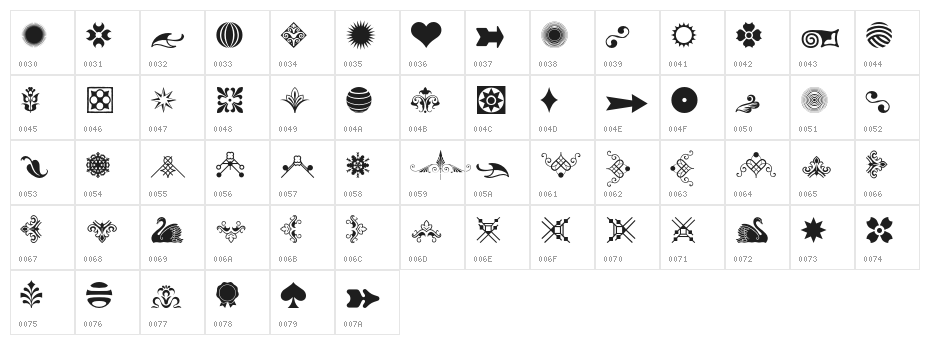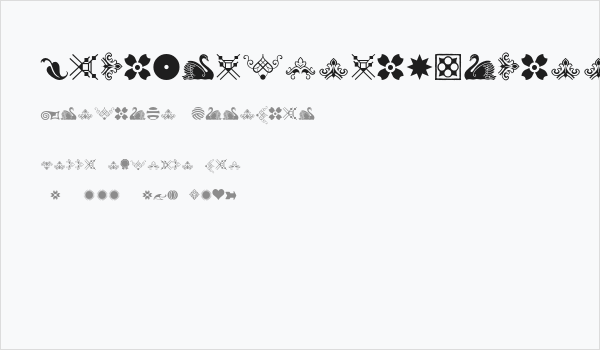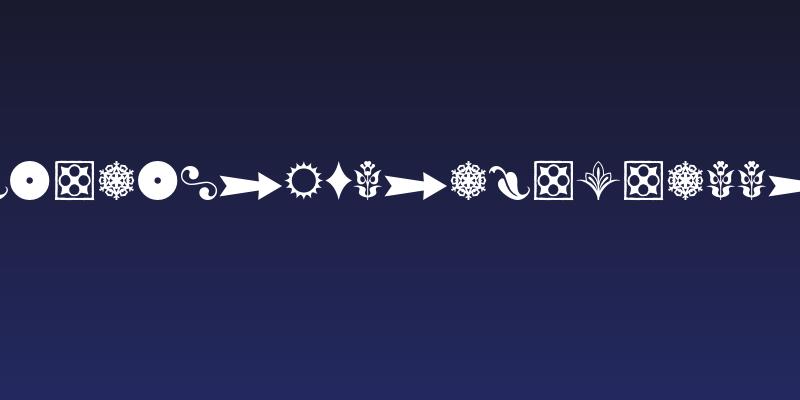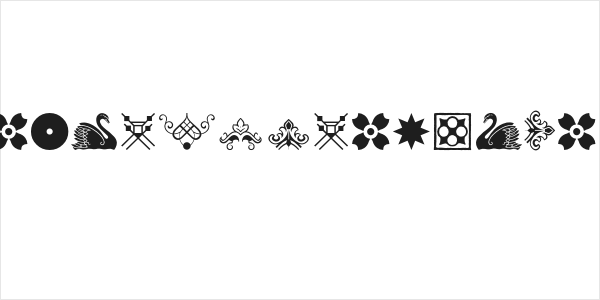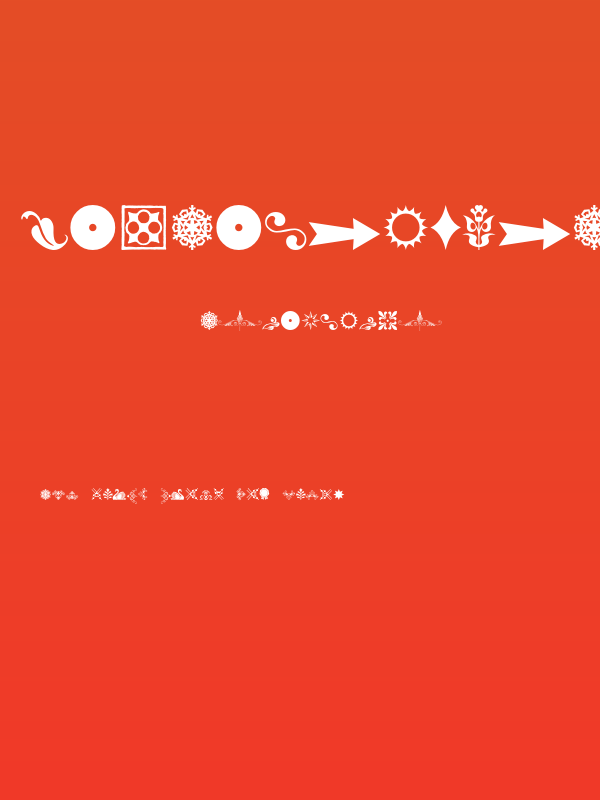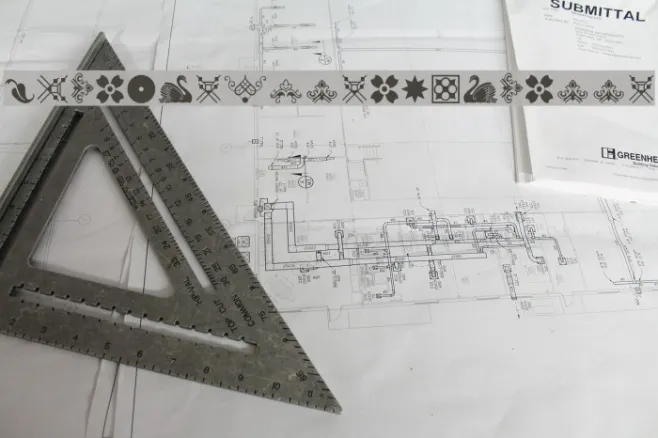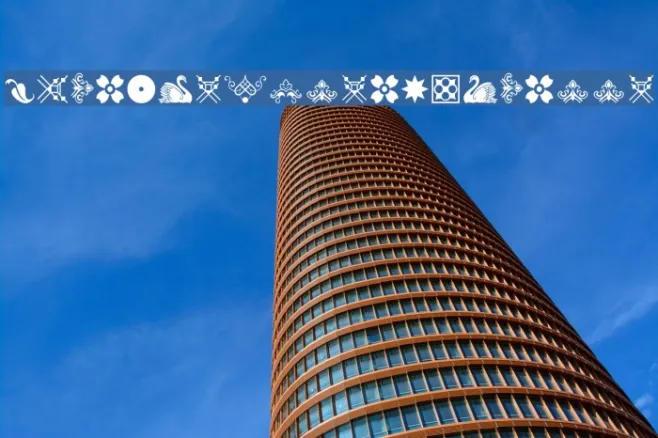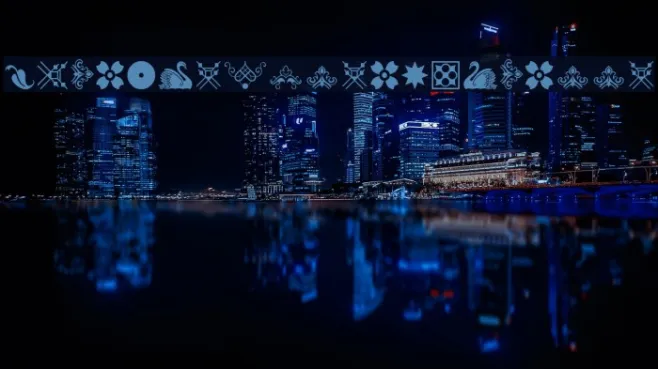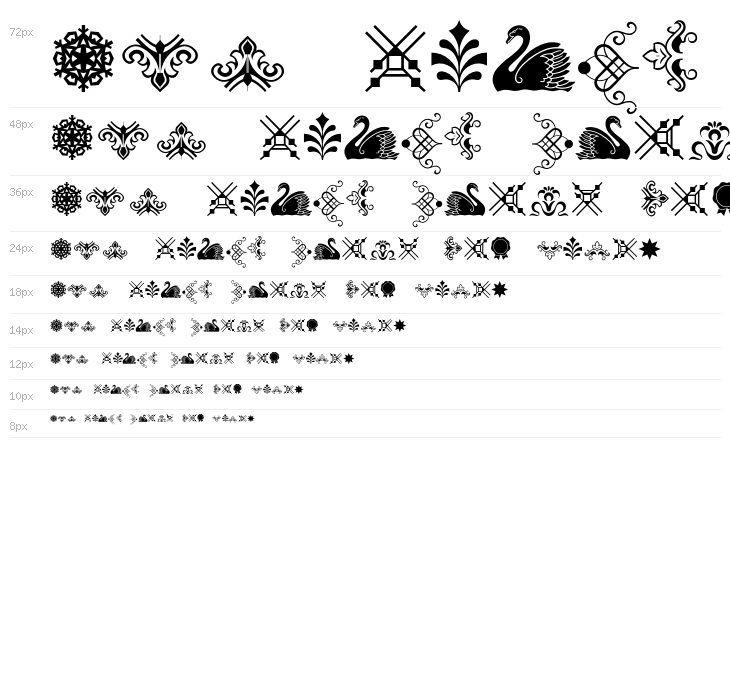
SoftOrnamentsFifteen Font
SoftOrnamentsFifteen Description
A decorative dingbat font featuring a wide variety of ornamental shapes, including florals, swirls, geometric motifs, hearts, arrows, and animal silhouettes. The glyphs are bold and highly stylized, with both symmetrical and asymmetrical designs, suitable for embellishing layouts or creating borders.
| Use Case | Borders, embellishments, icons, decorative accents. |
| Proposed Projects | Invitations, certificates, decorative borders, scrapbooking, branding accents, packaging, digital art. |